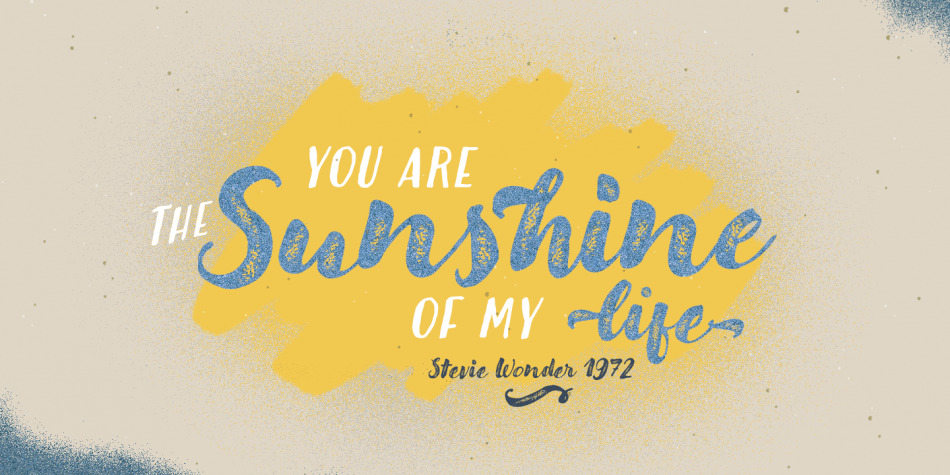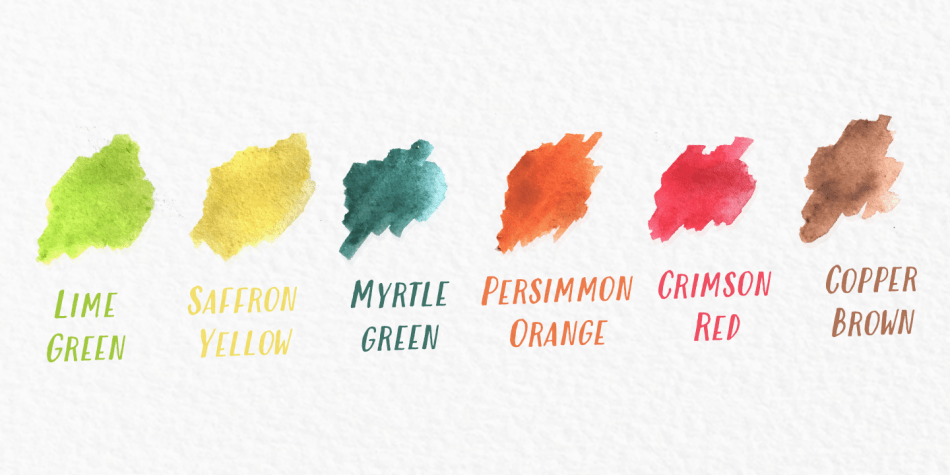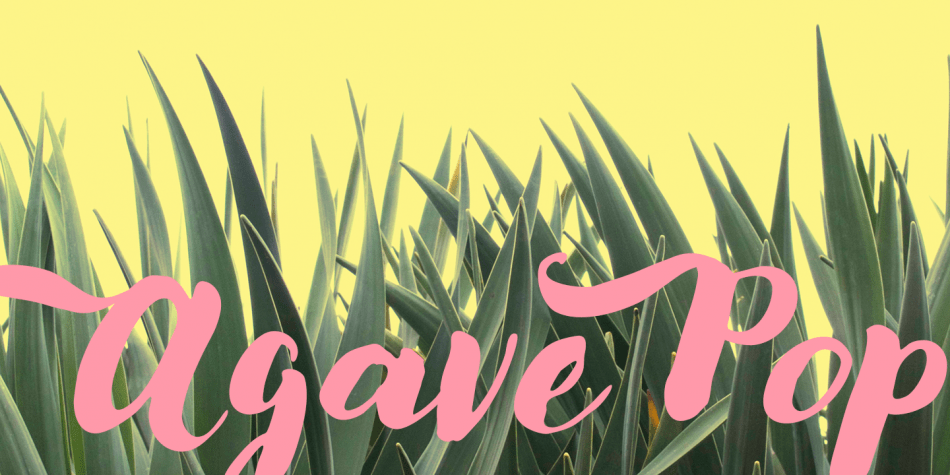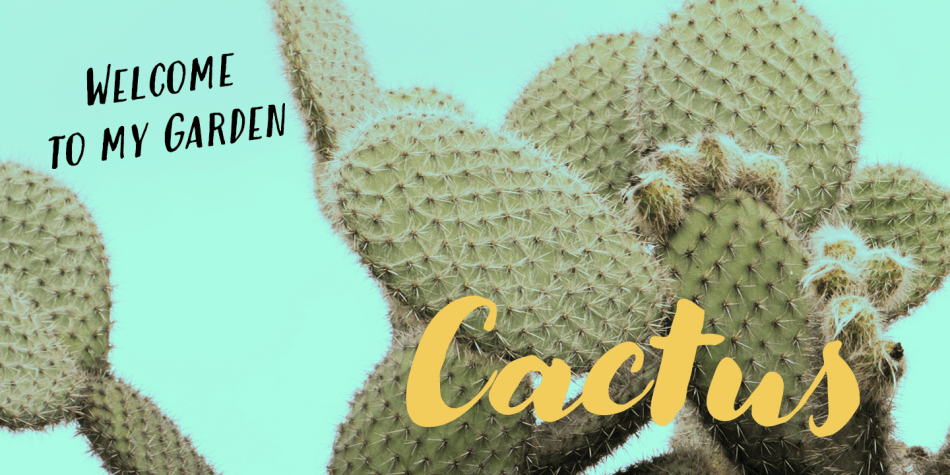
About Modern Love Slanted
Modern Love has been one of our most popular fonts during last year, so we decided to create a new version of this sweet character set. Modern Love Slanted is a new casual slanted brush-handwritten family. It has the effortless hand-painted feeling and…